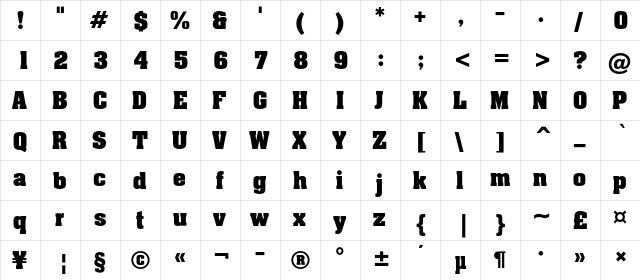
Luxor Regular
Design Context for Luxor Typeface
Luxor offers clean, dependable letterforms without strong stylistic allegiance, making it a practical choice for designers who need flexibility.
Pro Tip: Pair Luxor with a font of contrasting weight or personality to build a more expressive typographic hierarchy.